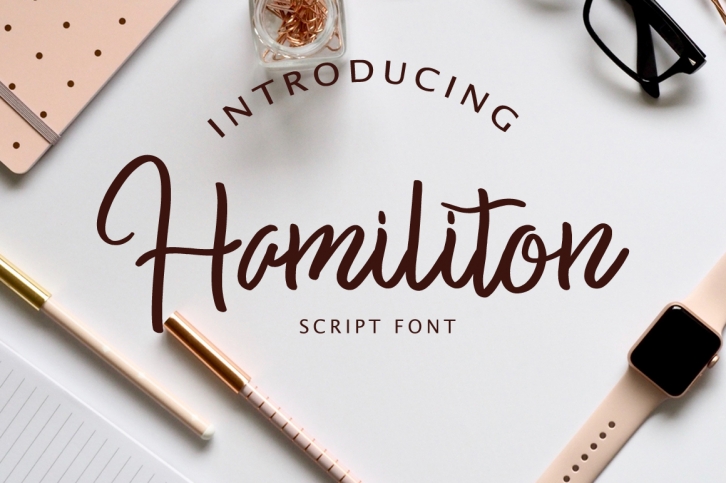
Hamiliton Script is a gorgeous font that was realeased on March 22, 2019. The font can be used in many style contexts and design environments. Perfect for invitations, magazines, websites, logos, and more! It was designed by Face Lab Inc and the file size is 17.95 MB. Thanks for checking out this font!